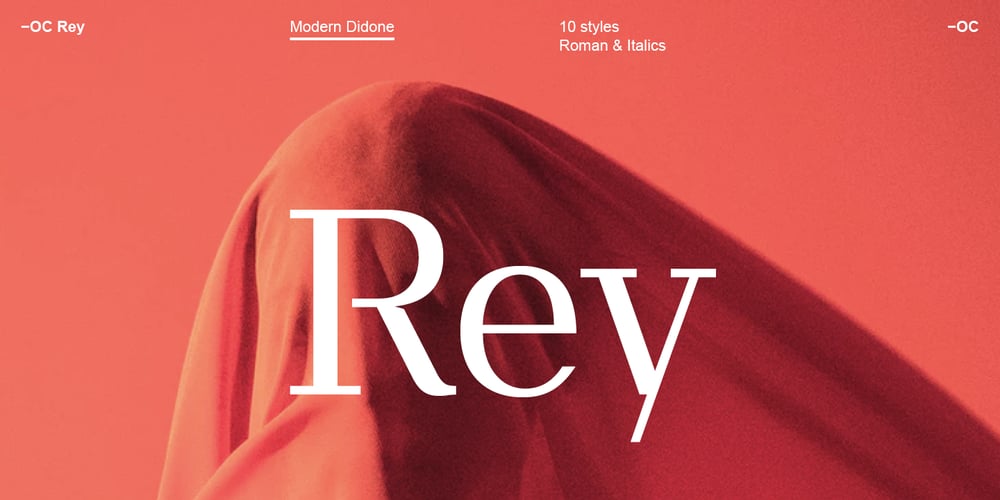
-OC Rey Font Family was designed by Andrew Bellamy and published by OtherwhereCollective. -OC Rey contains 10 styles and family package options. Available in ten styles -OC Rey is a modern Didone font featuring true italics and signature ligatures that can take designs to another level. Classical in character it is drawn with thick vertical stems and fine horizontal lines, a contrast which starts gradually at the lightest weight, building abruptly to the thick stems of bold. The forms are even in proportion and structure with a vertical stress giving a proud, upright stance and an air of distinction. The beauty of the high-end uppercase excels in elegant headlines perfect for the arena of art and fashion, while the high x-height, large eyes and apertures and distinctive open counters make it perfect for readable copy. With a traditional appearance and a refined elegance, itís reverent but also breaks from convention with distinguished characteristics that suggest heritage in a modern context. Traditionally round features are replaced with sharp corners, noticeably in the square tittles and the absence of heavy soft ball terminals giving it a unique presence. The weight of the unbracketed serifs is deliberately less extreme than some Didone hairlines, meaning itís beauty doesnít disintegrate when small or reversed, making for excellent versatility. -OC Rey is designed with extensive language support and with multiple open type features.